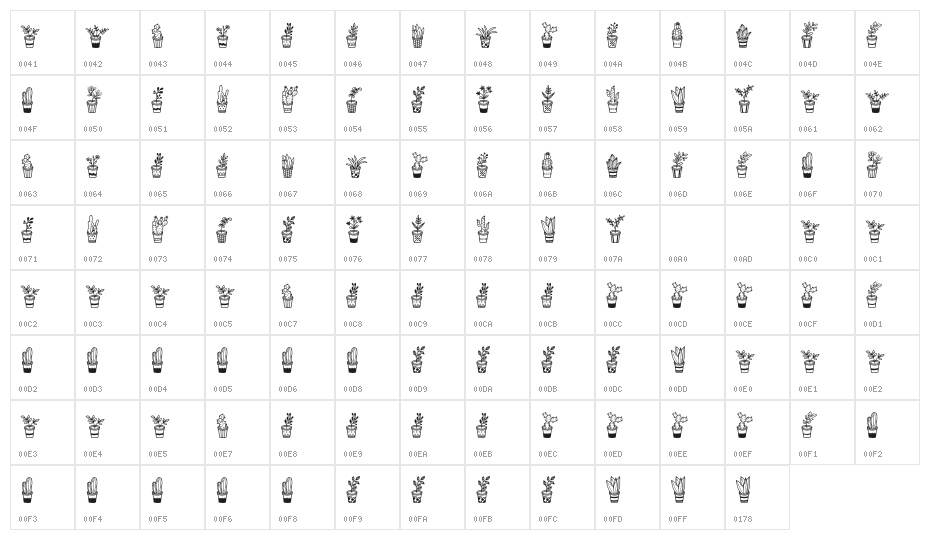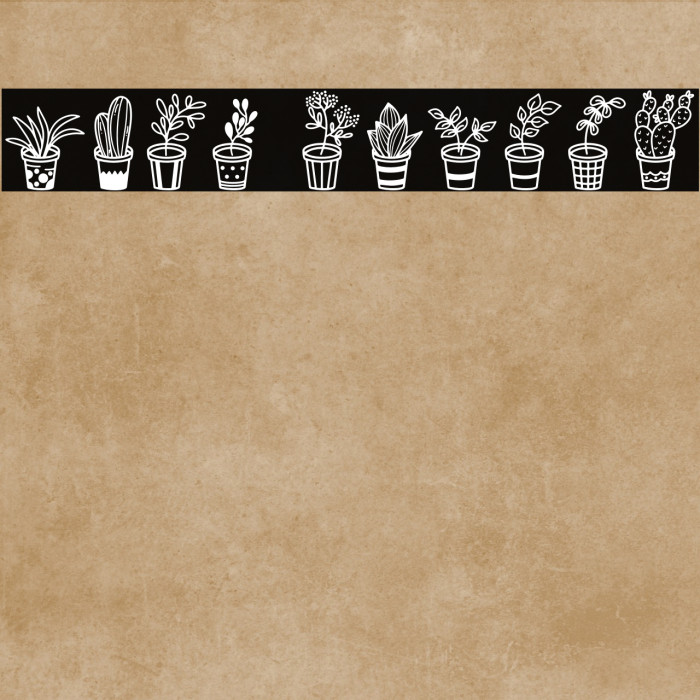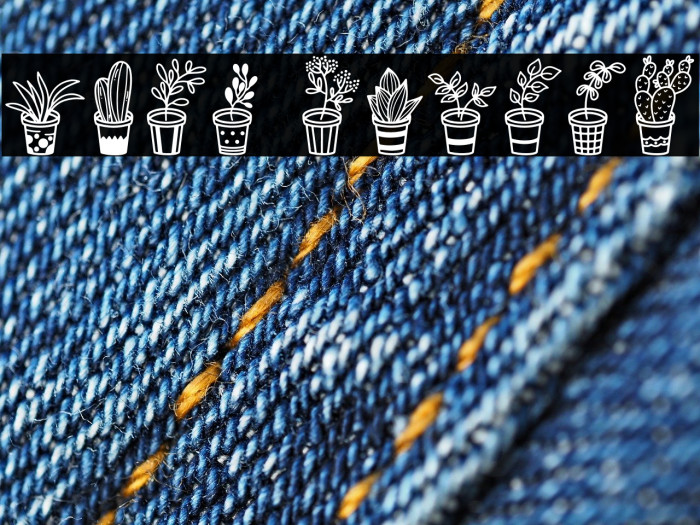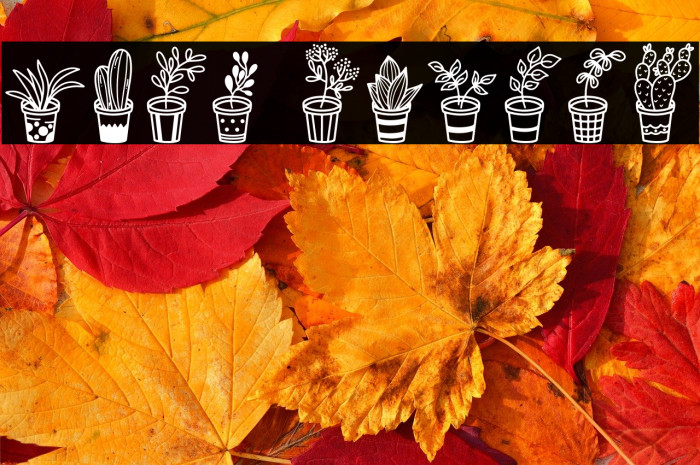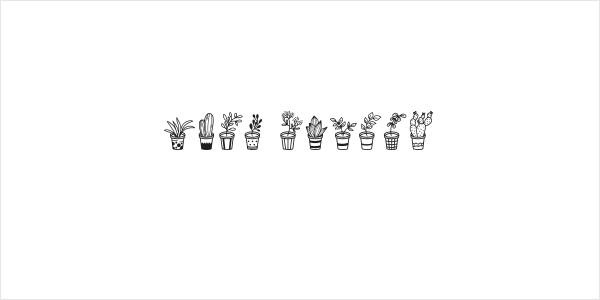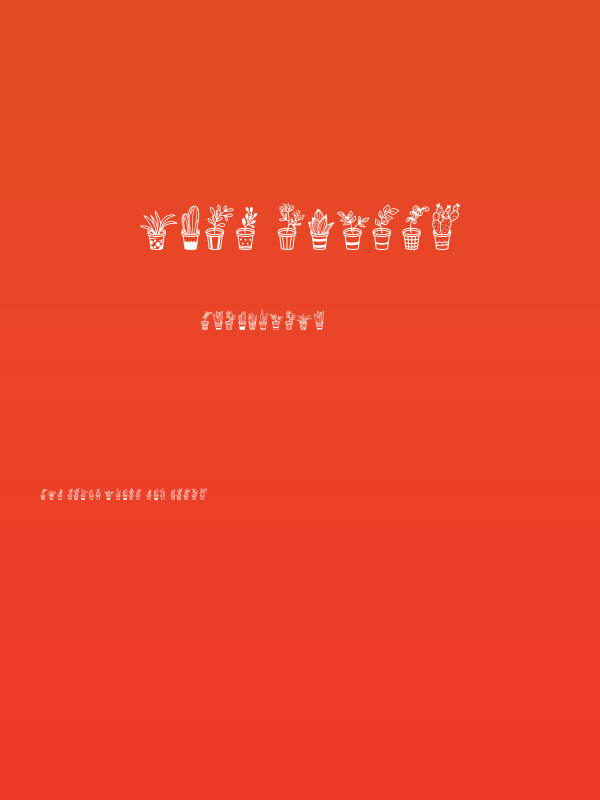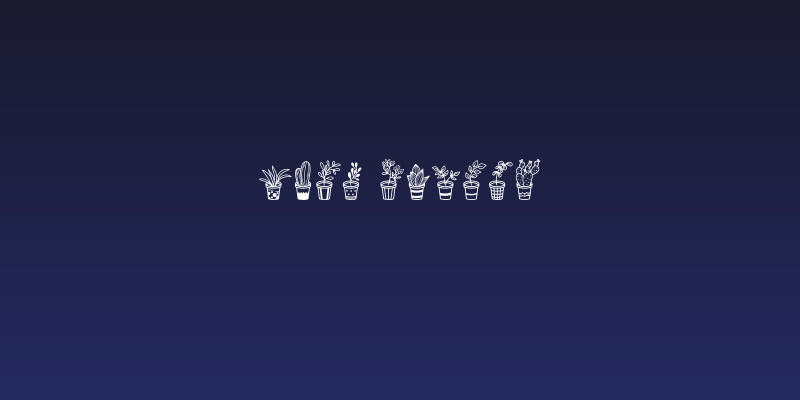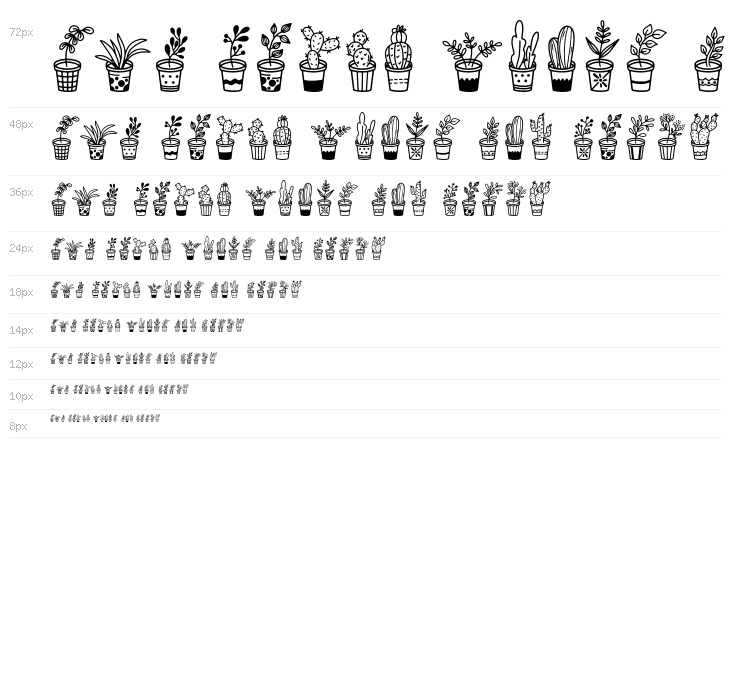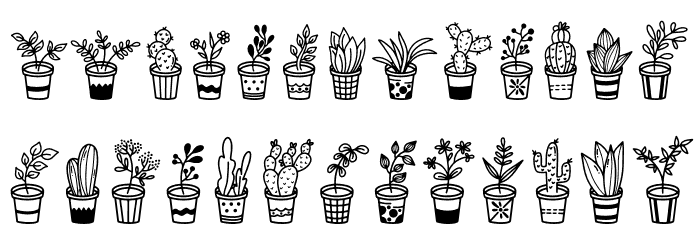
Home Plants Font
Home Plants Description
A playful, hand-drawn decorative font featuring whimsical illustrations of potted plants for each character, with bold, irregular strokes and a casual, organic feel.
| Overall Style | Decorative, Playful, Organic |
| Use Case | Headlines, Logos, Posters, Decorative text |
| Proposed Projects | Greeting cards, posters, eco-friendly branding, children's books, invitations, social media graphics. |